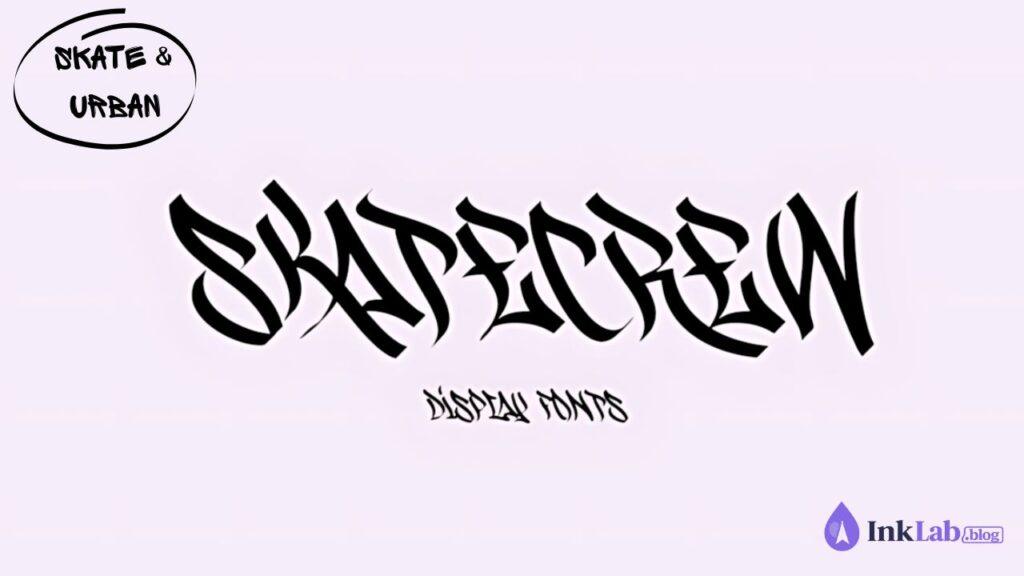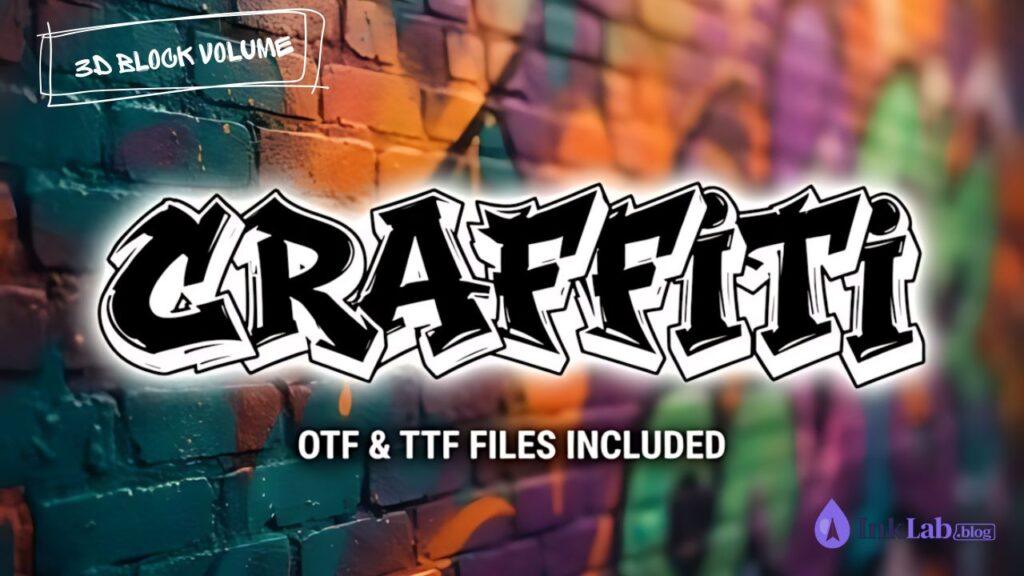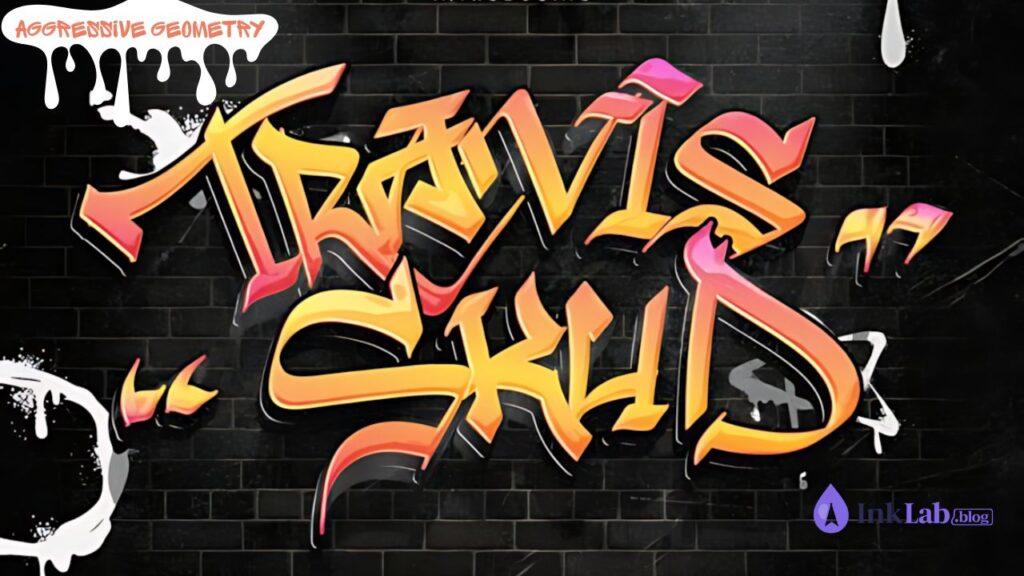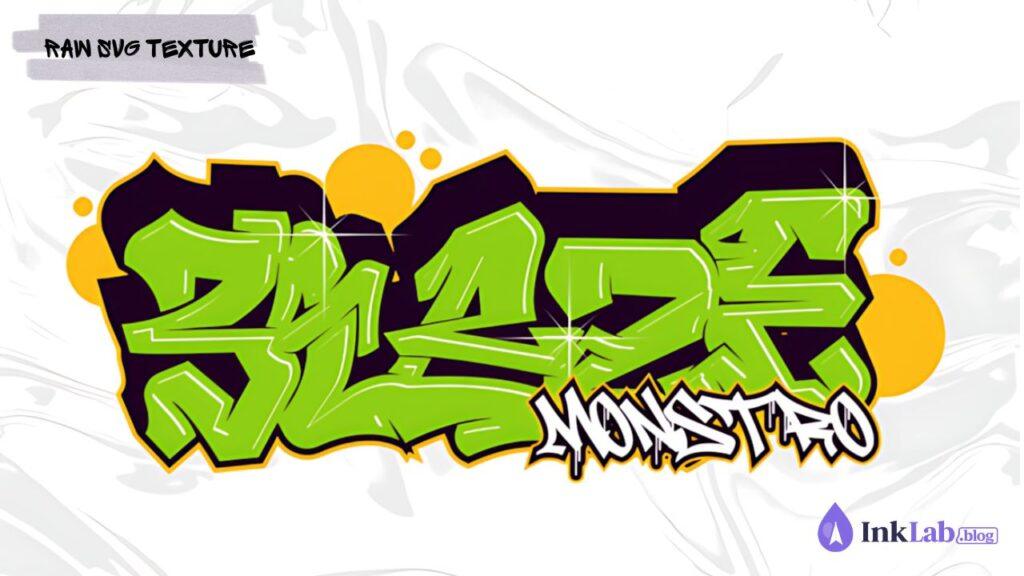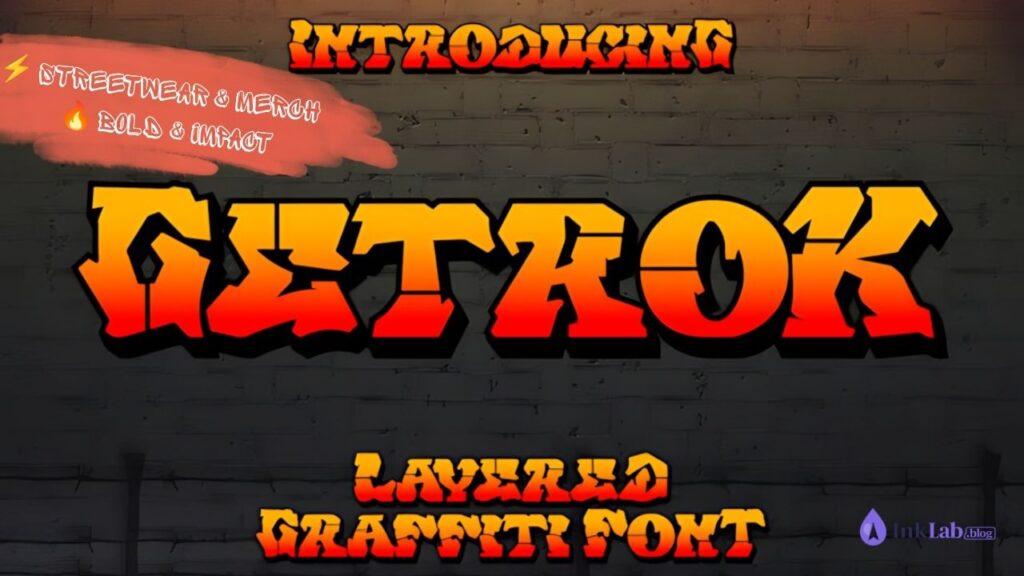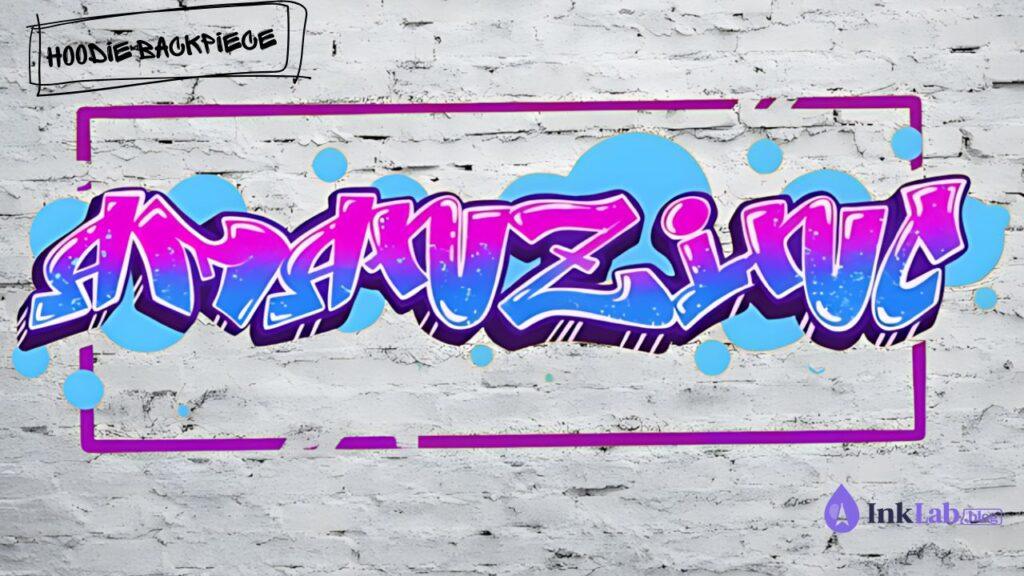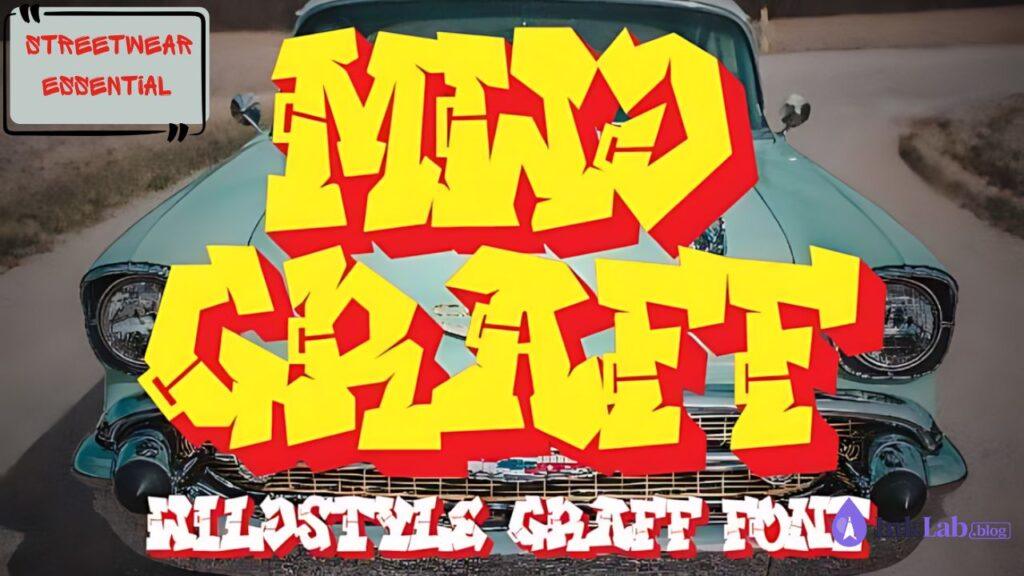
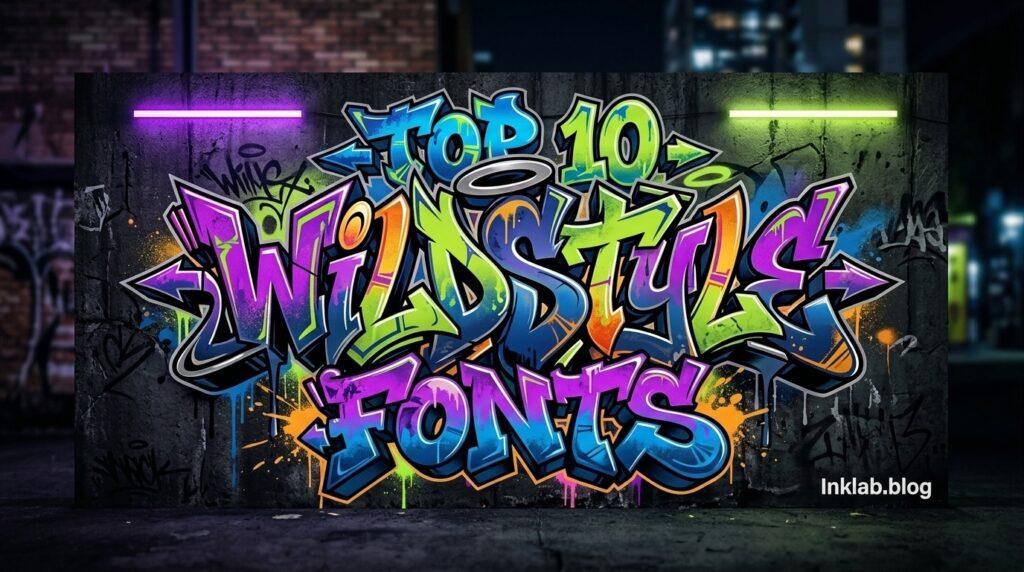
True Wildstyle graffiti fonts represent the pinnacle of street art typography — intricate interlocking letters, sharp arrows, overlapping layers, and aggressive geometry. For streetwear merch, POD apparel, and bold street designs, nothing brings more authentic NYC graffiti culture. Here are the 10 best true wildstyle graffiti fonts available on Creative Fabrica.
What Makes a Font “True Wildstyle”?
Wildstyle isn’t just any street font or spray-painted text. Originating in 1970s New York City (learn more on Wikipedia), true wildstyle is defined by interlocking letterforms, arrows, sharp extensions, spikes, and complex visual weaving. It is deliberately intricate, making it the most respected and visually powerful genre in graffiti typography.
For street merch and print-on-demand collections, wildstyle delivers:
- Maximum street credibility — authentic 80s/90s NYC hip-hop aesthetic
- Aggressive visual punch — stands out instantly on hoodies, oversized tees, and skate decks
- Complex design value — looks custom-designed without needing hours of vector work
🖊️ Top 10 Best True Wildstyle Graffiti Fonts
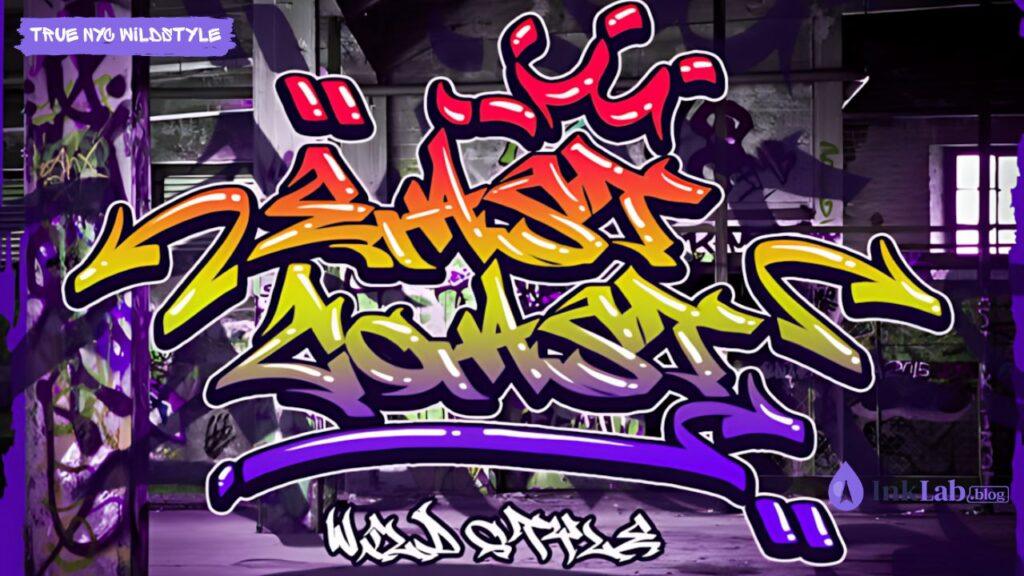
East Coast Wild Style Font
The gold standard for authentic wildstyle — featuring heavy interlocking shapes, directional arrows, and classic New York subway art construction. Essential for apparel brands demanding real street art heritage.
Skatecrew Font
True to its authentic wildstyle roots, Skatecrew blends raw skate-culture aesthetics with wild interlocking letterforms and aggressive angles for high-energy merch.
Graffiti Font
A masterclass in wildstyle typography featuring layered outlines, complex letter structures, and classic spray paint drips. Perfect for chest prints and back graphics.
Travis Skud Font
Features razor-sharp letter edges and tight interlocking shapes, perfect for dark streetwear hoodies, aggressive graphic tees, and underground brand identity.
Blaze Monstro – Wild Graffiti Tag SVG
Uses real spray-paint SVG textures for realistic street tagging and wildstyle flow. Ideal for high-definition DTG apparel printing and large print-on-demand designs.
Getrok Font
Unerringly aggressive with sharp extensions and direction arrows branching off every letterform. A standalone graphic centerpiece for street apparel.
Amanzinc Graffiti Font
Hyper-detailed vector paths designed for huge back-prints on oversized t-shirts and hoodies, offering maximum visual depth and urban detail.
MWD Graff Font
Heavy 3D extrusion effect combined with classic wildstyle letter bending and wall-piece aesthetics. Perfect for bold center-chest branding.
Nightclaw Vandal Font
Edgy, jagged, and aggressive. Built specifically for underground streetwear brands, dark aesthetics, and heavy graphic merch collections.
Wild Graf Graffiti Font
Combines dark metal calligraphic flourishes with street wildstyle structure. Offers an intense hybrid design that thrives on black streetwear hoodies.
Dripster Font
Street style with organic paint drips that add an authentic graffiti feel while keeping the main letter bodies solid and easy to cut and weed.
Drak Graffiti Font
Dark, aggressive style with heavy strokes and sharp edges. Works perfectly for dark-themed POD collections, hip-hop merch, and Cricut vinyl projects.
Dirty Lizard Graffiti Font
Rough, distressed style with raw wall textures. Designed specifically for DTG print-on-demand products where gritty textures bring street authenticity.
Street Eagle Graffiti Font
A versatile street font that balances complexity with high readability. Sharp eagle-inspired strokes cut easily on Cricut and print sharply on apparel.
Boy Graffiti Font
Playful street font with rounded forms and youthful energy. Ideal for youth-targeted POD collections, back-to-school merch, and urban lifestyle apparel.
What’s the difference between wildstyle and regular graffiti fonts?
Regular graffiti fonts (like bubble or block tag fonts) are simple and easy to read. True wildstyle intentionally interlocks letters with arrows and sharp extensions, creating a far more complex visual artwork.